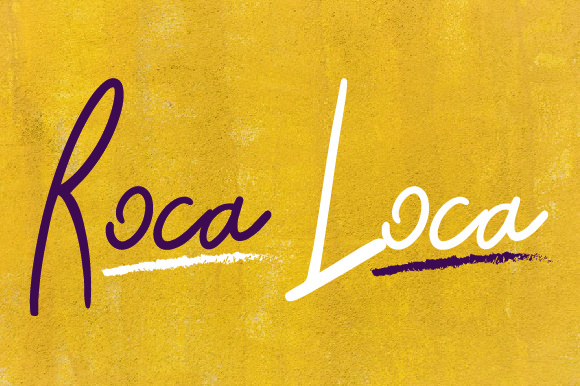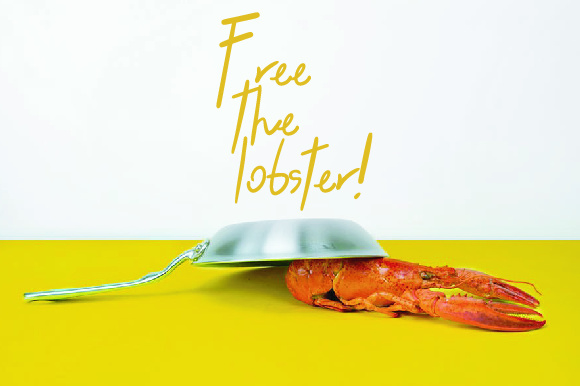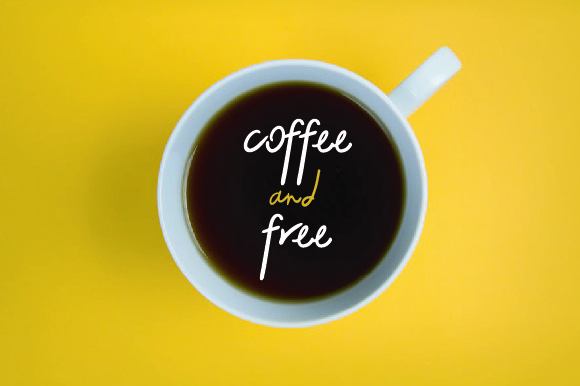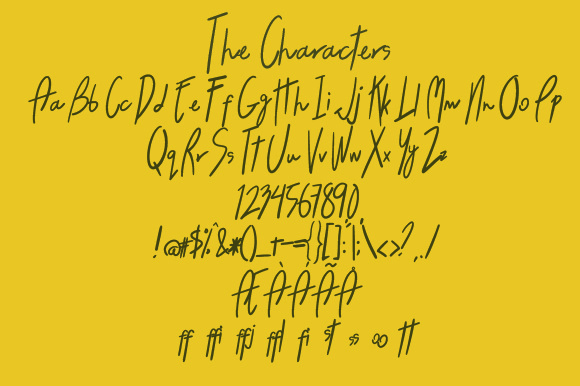
Roca Loca Font
About Roca Loca Font
Roca Loca, a stunning handwritten font created specifically for branding, invitations, apparel design and other designs that need a personal touch.